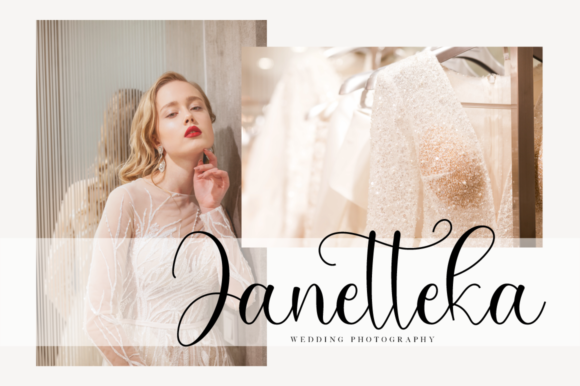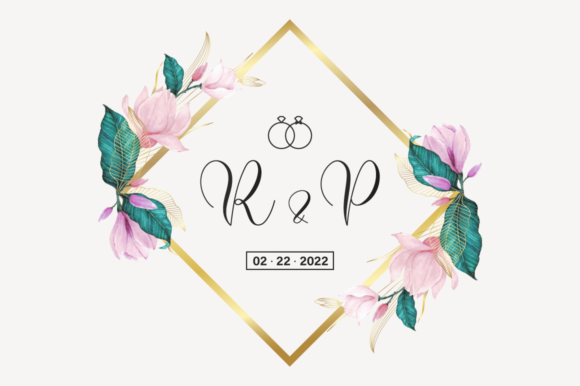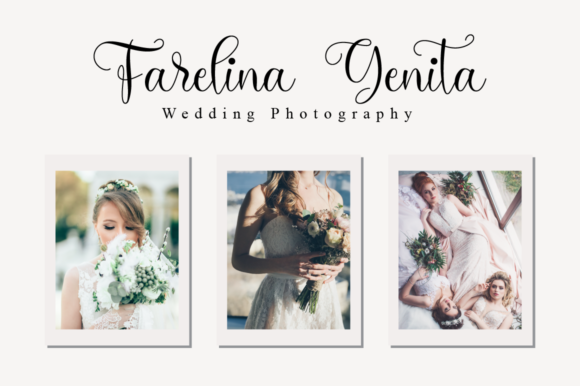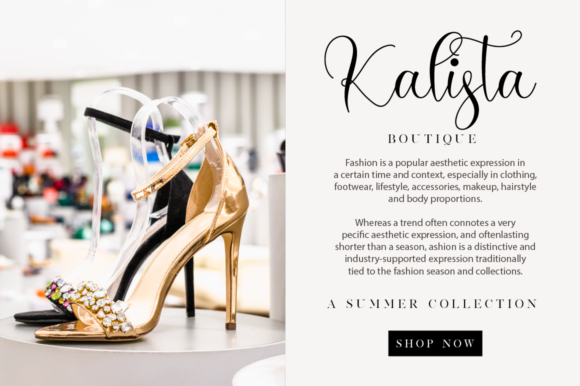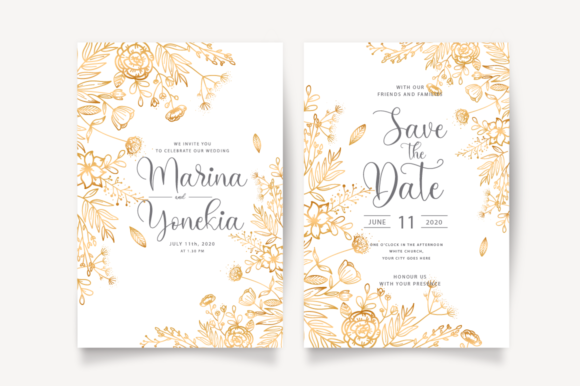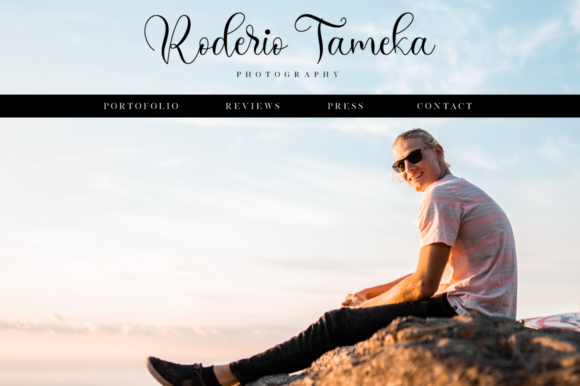
Introducing Galeyala Font: Elevate Your Designs with Elegance and Sophistication
In the world of typography, fonts play a crucial role in conveying the tone and personality of a design. For crafters, designers, and artists, finding the perfect font can be a daunting task. However, if you’re looking for a delicate and elegant handwritten font that can add a touch of sophistication to your designs, look no further than Galeyala Font.
What is Galeyala Font?
Galeyala is a beautiful, handwritten font that exudes elegance and refinement. Its delicate strokes and smooth lines make it perfect for a variety of design applications, including wedding invitations, thank you cards, quotes, greeting cards, logos, business cards, and more. This font is designed to add a personal touch to your designs, making them stand out from the crowd.
Key Features of Galeyala Font
So, what makes Galeyala Font so special? Here are some of its key features:
- Delicate and Elegant: Galeyala Font boasts a delicate and elegant design that is perfect for creating sophisticated and refined designs.
- PUA Encoded: This font is PUA (Private Use Area) encoded, which means you can access all the glyphs and swashes with ease. This feature makes it easy to use and customize the font to suit your design needs.
- Varying Baseline: Galeyala Font features a varying baseline, which gives it a natural, handwritten look that is perfect for creating organic and earthy designs.
- Smooth Lines: The font’s smooth lines and curves make it easy to read and visually appealing.
- Gorgeous Glyphs: Galeyala Font comes with a range of gorgeous glyphs and stunning alternates that can be used to add a personal touch to your designs.
Uses of Galeyala Font
Galeyala Font is a versatile font that can be used for a variety of design applications, including:
- Wedding Invitations: The font’s elegant design makes it perfect for creating beautiful wedding invitations that set the tone for the big day.
- Thank You Cards: Galeyala Font is also great for creating heartfelt thank you cards that are perfect for expressing gratitude.
- Quotes: The font’s smooth lines and elegant design make it ideal for creating inspirational quotes that are perfect for social media, blogs, and more.
- Greeting Cards: Galeyala Font can be used to create a range of greeting cards, from birthday cards to Christmas cards.
- Logos: The font’s unique design makes it perfect for creating custom logos that stand out from the crowd.
- Business Cards: Galeyala Font can be used to create professional business cards that make a great first impression.
Why Choose Galeyala Font?
So, why should you choose Galeyala Font for your design projects? Here are a few reasons:
- Elegant Design: Galeyala Font boasts an elegant design that is perfect for creating sophisticated and refined designs.
- Easy to Use: The font is PUA encoded, making it easy to access all the glyphs and swashes.
- Versatile: Galeyala Font can be used for a range of design applications, from wedding invitations to logos.
- High-Quality: The font is designed to deliver high-quality results, making it perfect for professional designers and crafters.